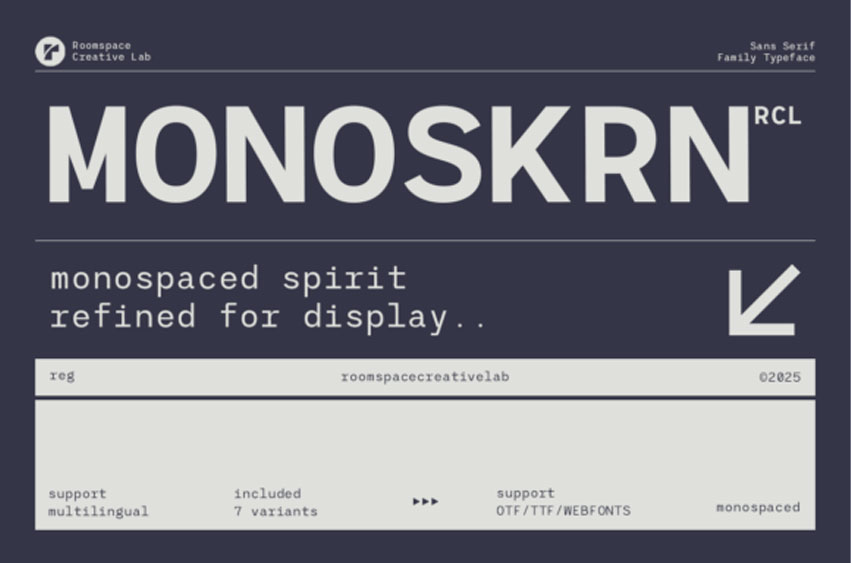
Monoskrn Font Sans Serif is a modern monospaced-inspired typeface built for clarity, structure, and professional usability.
The aesthetic of the MONOSKRN font is clean, minimalist, and highly functional, perfect for coding displays, brutalist web design, sci-fi branding, or any project requiring a strong, architectural, and contemporary feel. Its consistent spacing gives it a unique visual rhythm. This sophisticated sans-serif family typeface supports both OTF, TTF, and webfont formats, ensuring versatility across digital and print media. Utilize the deliberate, engineered elegance of the MONOSKRN font to communicate clarity and cutting-edge style.
Its proportional spacing makes it more readable than true monospaced fonts, while preserving the coding aesthetic designers love. The family includes 14 variants suitable for print, web, branding kits, packaging, and UI layouts.
Use Cases: Logos, web design, dashboards, packaging, tech branding, editorials, digital assets, UI displays.